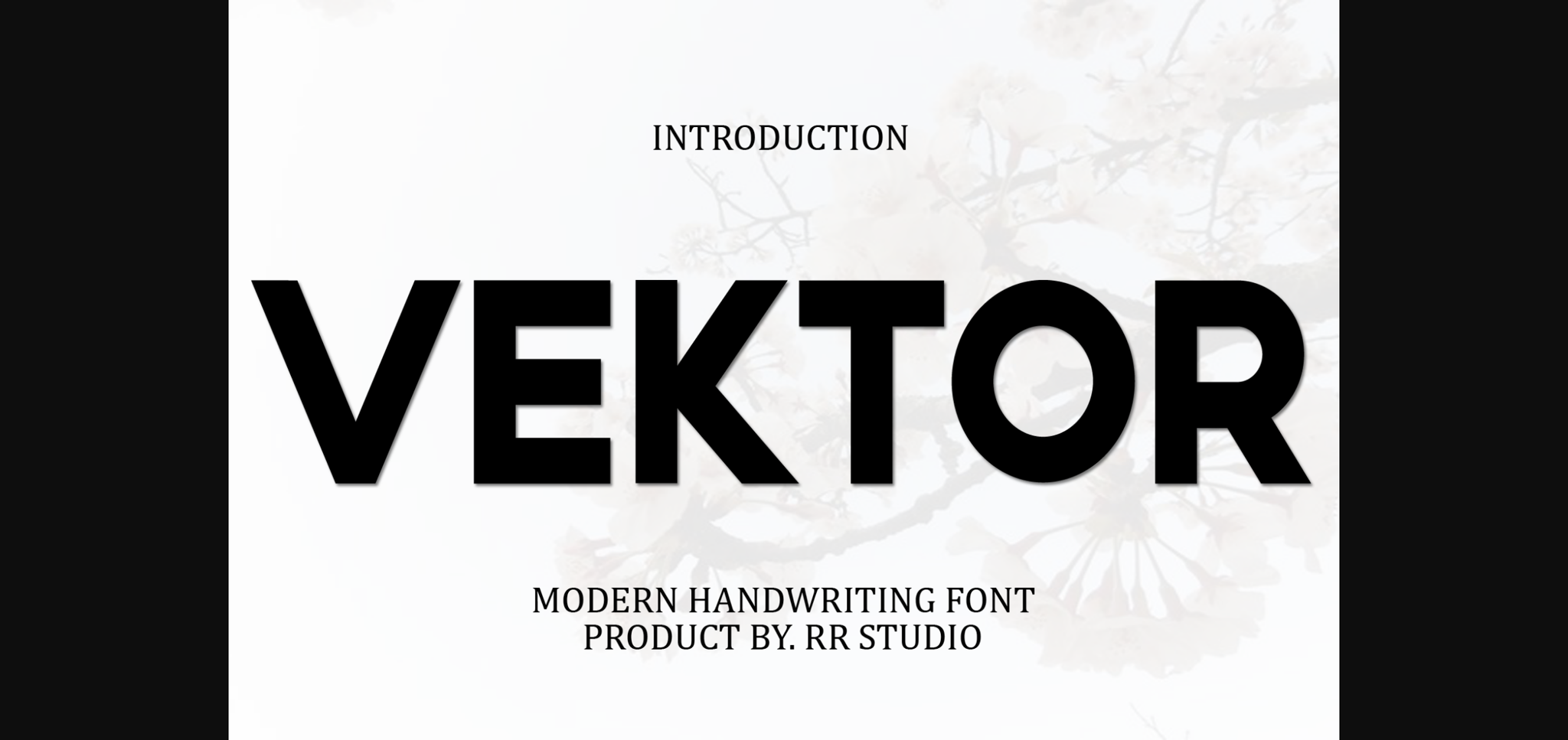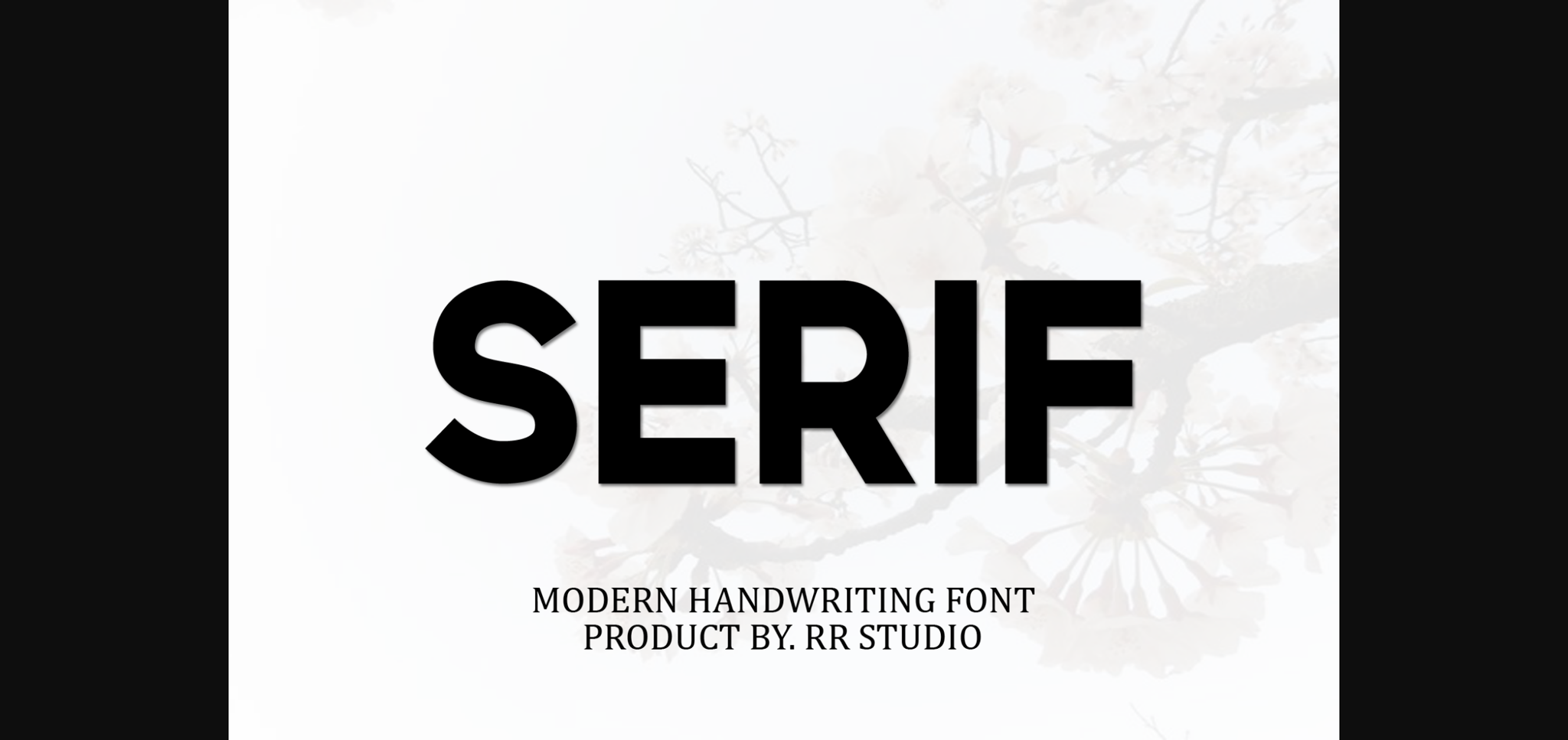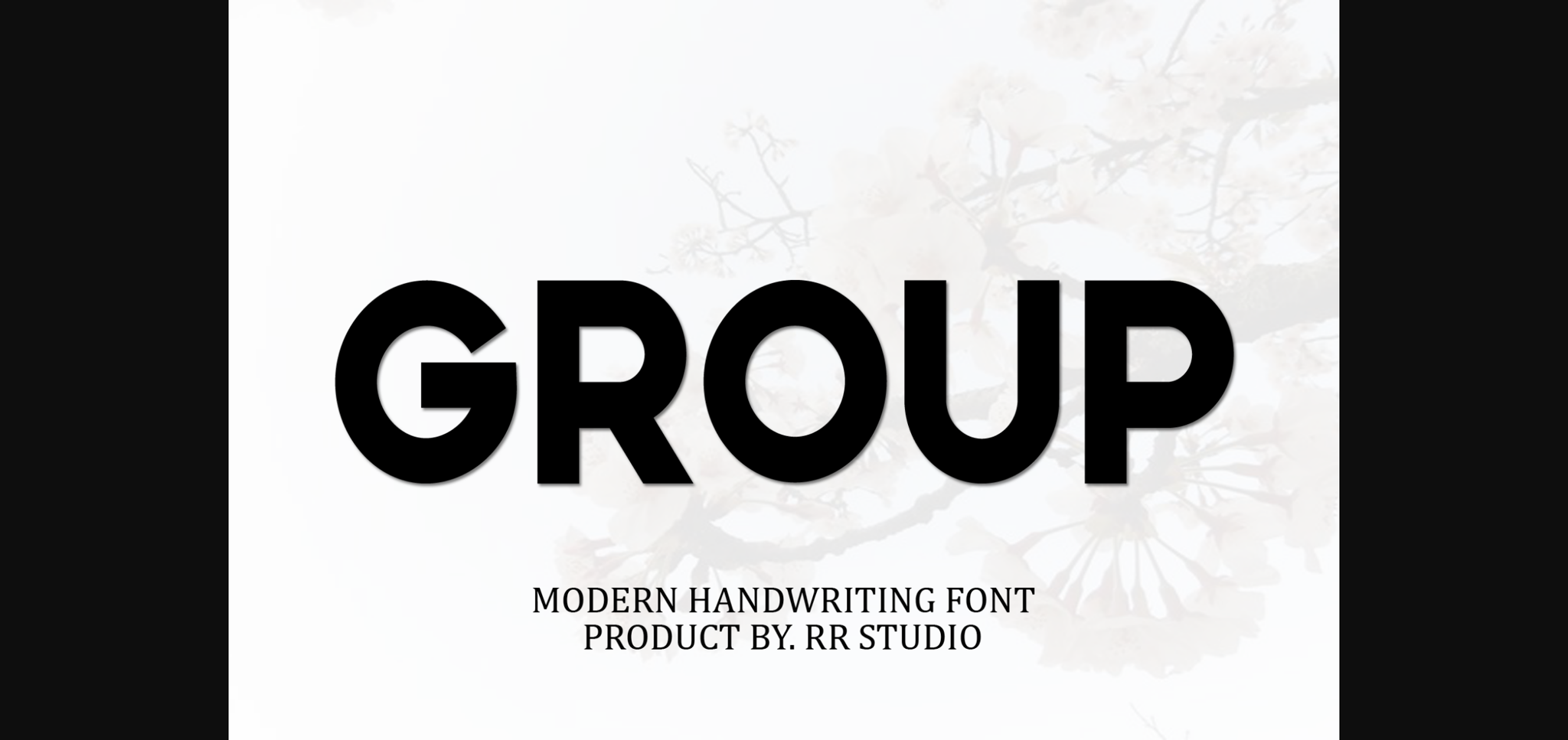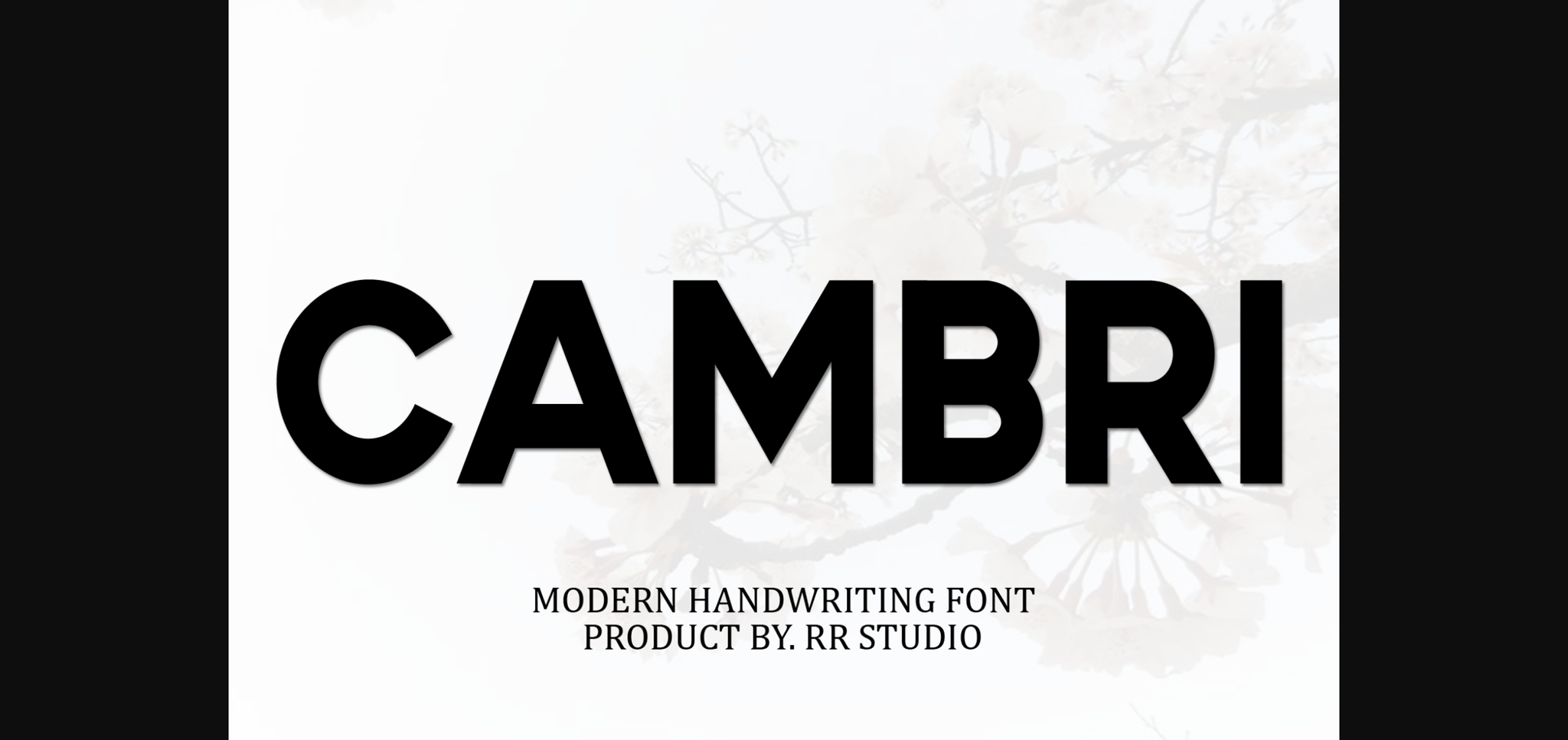
Vektor Font
About Vektor Font
Vektor is a flowing, sleek, and trendy sans-serif font. Add it confidently to your crafty projects and enjoy the results!